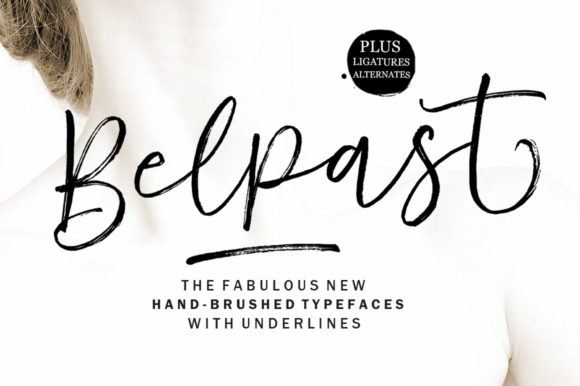
Introducing Belpast Script Font: Elevate Your Designs with Elegance
In the realm of typography, few fonts manage to capture the essence of elegance and sophistication as effectively as the Belpast Script Font. This exquisite script font is not only a visual treat but also a versatile tool for designers, offering a wide range of creative possibilities. In this article, we’ll delve into the features, benefits, and potential applications of the Belpast Script Font, exploring how it can elevate your designs to new heights of beauty and professionalism.
What is Belpast Script Font?
Belpast Script is a lovely and elegant script font that has quickly become a favorite among designers and typography enthusiasts alike. Its fluid strokes, intricate details, and graceful flow make it an ideal choice for projects that demand a touch of sophistication and refinement. Whether you’re working on a branding project, a wedding invitation, or a fashion magazine, Belpast Script Font is sure to leave a lasting impression.
PUA Encoding: Easy Access to Glyphs and Swashes
One of the standout features of Belpast Script Font is its PUA (Private Use Area) encoding. This means that the font includes a comprehensive range of glyphs and swashes, easily accessible through your design software. PUA encoding allows designers to tap into the full creative potential of the font, effortlessly incorporating alternate characters, ligatures, and decorative elements into their work. With Belpast Script Font, you can say goodbye to the limitations of standard fonts and hello to a world of typographic possibilities.
The Ravishing Style of Belpast Script
So, what makes Belpast Script Font so special? The answer lies in its ravishing style, which effortlessly combines elegance with a touch of playfulness. Each letterform is meticulously crafted to convey a sense of movement and fluidity, making the font perfect for designs that require a dynamic, yet refined aesthetic. From the flowing connections between letters to the delicate swashes and flourishes, Belpast Script Font is a true masterpiece of typographic design.
Use Belpast Script Font to Create Gorgeous Designs
With Belpast Script Font, the creative possibilities are endless. Here are just a few ideas to get you started:
- Wedding Invitations and Stationery: Add a touch of romance and sophistication to your wedding designs with Belpast Script Font.
- Fashion Branding and Magazines: Elevate your fashion projects with the font’s elegant, high-end aesthetic.
- Logos and Wordmarks: Create a lasting impression with a custom logo or wordmark featuring Belpast Script Font.
- Packaging and Product Design: Add a touch of luxury to your product packaging with the font’s refined, sophisticated style.
Benefits of Using Belpast Script Font
So, why choose Belpast Script Font for your next design project? Here are just a few benefits to consider:
- Elegance and Sophistication: Belpast Script Font adds a touch of refinement and luxury to any design.
- Versatility: The font’s PUA encoding and range of glyphs and swashes make it suitable for a wide range of design applications.
- Easy to Use: Belpast Script Font is compatible with most design software, making it easy to incorporate into your workflow.
- Unique and Memorable: The font’s distinctive style ensures that your designs will stand out from the crowd.
Tips for Using Belpast Script Font Effectively
To get the most out of Belpast Script Font, here are a few tips to keep in mind:
- Use it Sparingly: While Belpast Script Font is beautiful, it’s best used sparingly to avoid overwhelming the design.
- Experiment with Swashes and Glyphs: Take advantage of the font’s PUA encoding to add unique touches to your design.
- Pair it with Contrasting Fonts: Combine Belpast Script Font with a contrasting font to create visual interest and hierarchy.
In conclusion, Belpast Script Font is a stunning script font that offers a unique blend of elegance, sophistication, and versatility. With its PUA encoding, ravishing style, and range of creative possibilities, it’s an ideal choice for designers looking to elevate their projects to new heights of beauty and professionalism. Whether you’re working on a wedding invitation, fashion brand, or packaging design, Belpast Script Font is sure to leave a lasting impression.